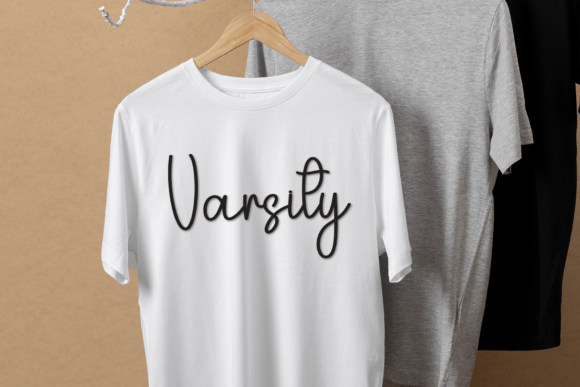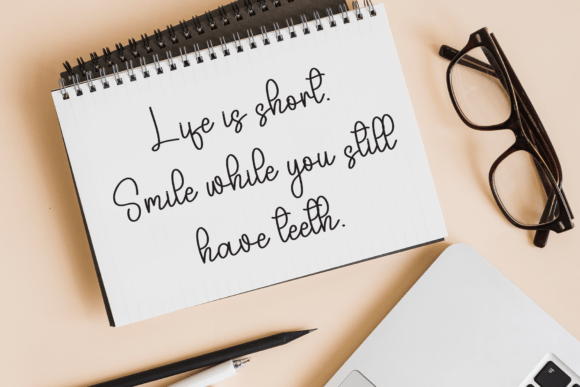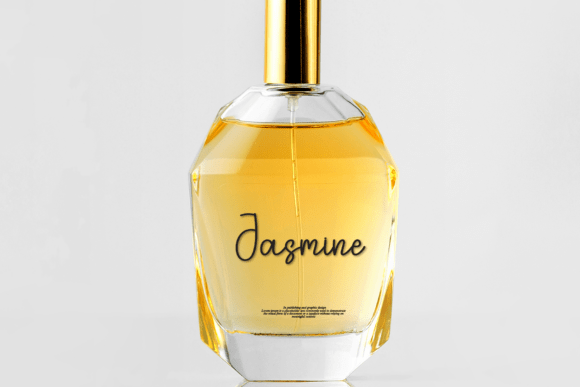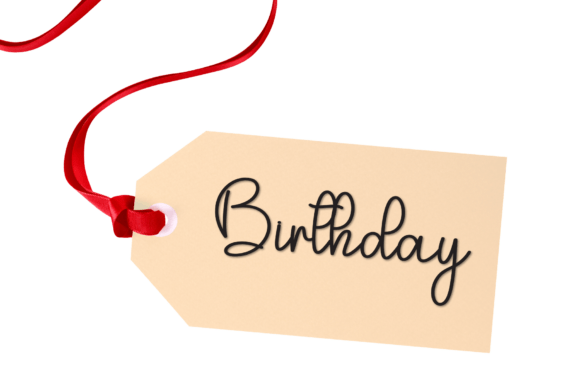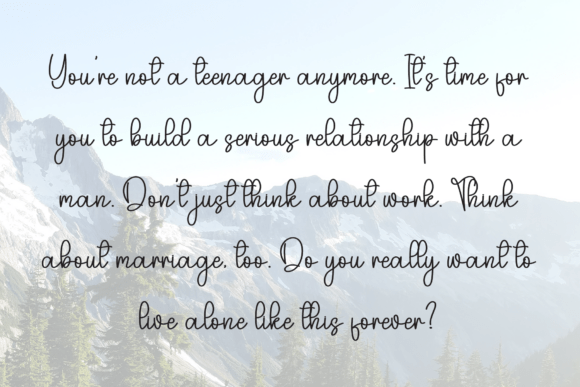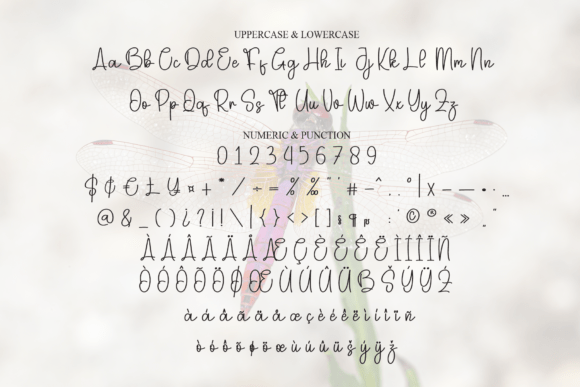
Introducing Dragonfly Font: Elevate Your Designs with Elegance and Sophistication
In the world of typography, a well-crafted font can make all the difference in transforming a design from ordinary to extraordinary. For designers and crafters seeking to add a touch of elegance and contemporary charm to their projects, the Dragonfly Font is an exceptional choice. This stylish script font is meticulously designed to bring a refined and sophisticated aesthetic to a wide range of applications, from logos and invitations to packaging and social media graphics.
The Essence of Dragonfly Font
Dragonfly Font is a masterful blend of traditional calligraphy and modern design. Its graceful strokes and fluid curves are carefully crafted to evoke the beauty of hand-drawn calligraphy, while its polished details and contemporary twist ensure it remains fresh and relevant. Each letterform is thoughtfully designed to contribute to the font’s overall sense of harmony and visual flow, making it a joy to use in various design contexts.
Key Features of Dragonfly Font
- Elegant and Sophisticated: Dragonfly Font exudes refinement and luxury, perfect for designs that require a high-end feel.
- Versatile: Suitable for a wide range of applications, including logos, invitations, packaging, social media graphics, and more.
- Hand-Drawn Charm: Captures the essence of hand-drawn calligraphy with a modern twist, adding a personal touch to digital designs.
- Fluid Curves and Graceful Strokes: The font’s design ensures a natural flow and beautiful appearance in any context.
- Polished Details: Every letterform is meticulously crafted to contribute to the font’s overall elegance and sophistication.
Applications of Dragonfly Font
The versatility of Dragonfly Font makes it an excellent choice for various design projects. Here are some of the ideal applications:
Logos and Branding
For businesses looking to establish a luxurious and elegant brand identity, Dragonfly Font can be used to create stunning logos that convey sophistication and refinement.
Invitations and Stationery
Add a touch of elegance to wedding invitations, event invites, and personal stationery with Dragonfly Font, making any occasion feel special and memorable.
Packaging Design
Elevate product packaging with a font that communicates luxury and quality, helping your products stand out on store shelves.
Social Media Graphics
Enhance social media presence with stylish and sophisticated graphics that utilize Dragonfly Font, perfect for promoting events, products, or services.
Tips for Using Dragonfly Font Effectively
To maximize the impact of Dragonfly Font in your designs, consider the following tips:
- Pair with Complementary Fonts: Combine Dragonfly Font with clean sans-serif fonts for contrast and visual interest.
- Adjust Letter Spacing: Optimize letter spacing to ensure the best flow and readability for your specific design.
- Experiment with Colors: While the font itself is elegant, experimenting with different colors can further enhance its appeal and suitability for your design.
- Consider Size and Weight: Play with different sizes and weights to create hierarchy and emphasis in your design.
Dragonfly Font is a versatile and elegant script font that can elevate a wide range of design projects. Its combination of traditional calligraphy charm and modern sophistication makes it an invaluable asset for designers and crafters looking to add a refined touch to their work. Whether you’re creating logos, invitations, packaging, or social media graphics, Dragonfly Font is sure to deliver both versatility and visual appeal, helping your designs stand out with elegance and poise.